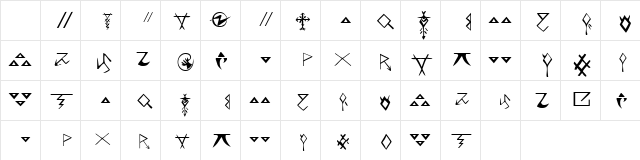
Complete XSkaven II Normal glyph index. Displaying only characters natively supported by XSkaven II Normal font.
XSkaven II is a composed and adaptable typeface that performs quietly and consistently across a wide range of design contexts.